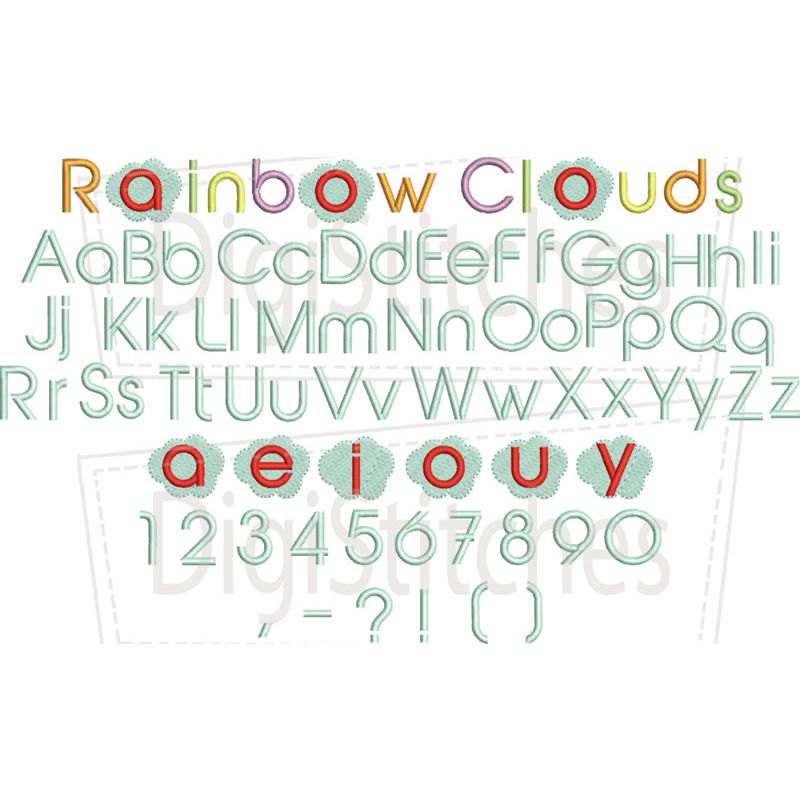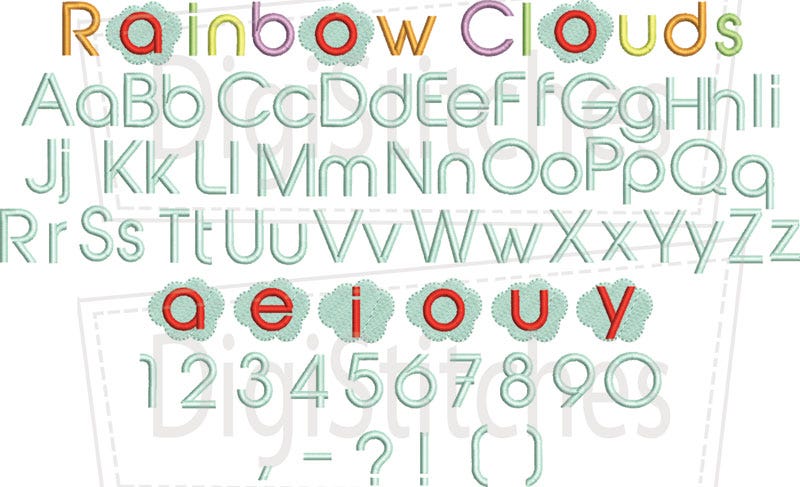
Rainbow Clouds Satin Stitch Embroidery Font
Rainbow Clouds Embroidery Font
A fun and unique embroidery font to add something extra special to your embroidery projects!
Featuring bold letters that really satnd out on t-shirts and projects.
Upper Case letters A thru Z, lower case letters a thru z, numbers 0-9 and punctuation as shown.